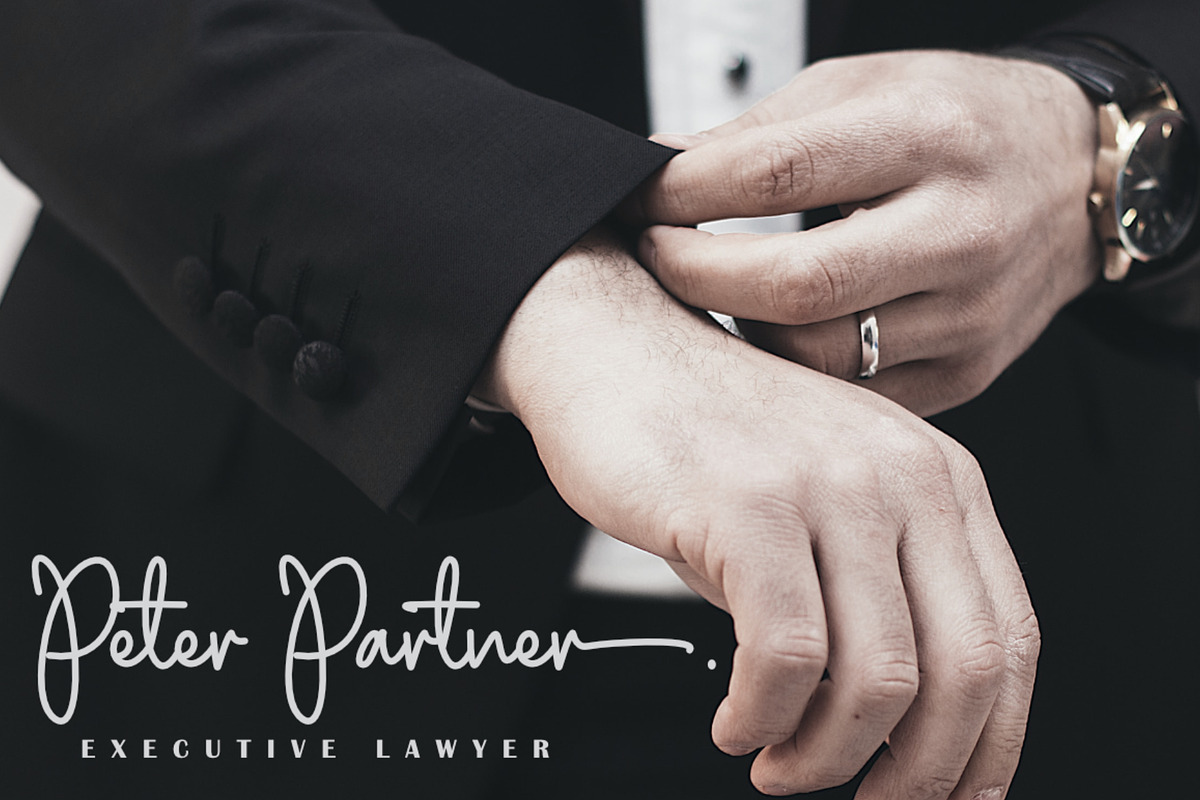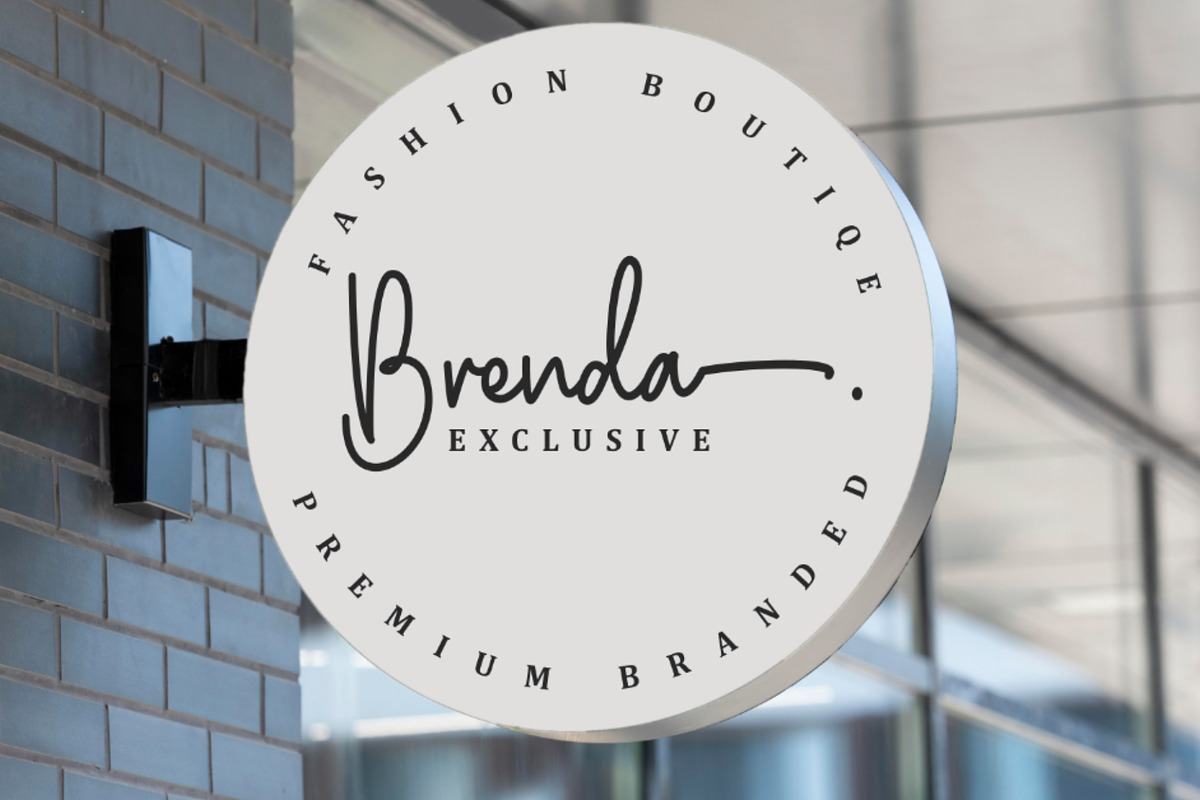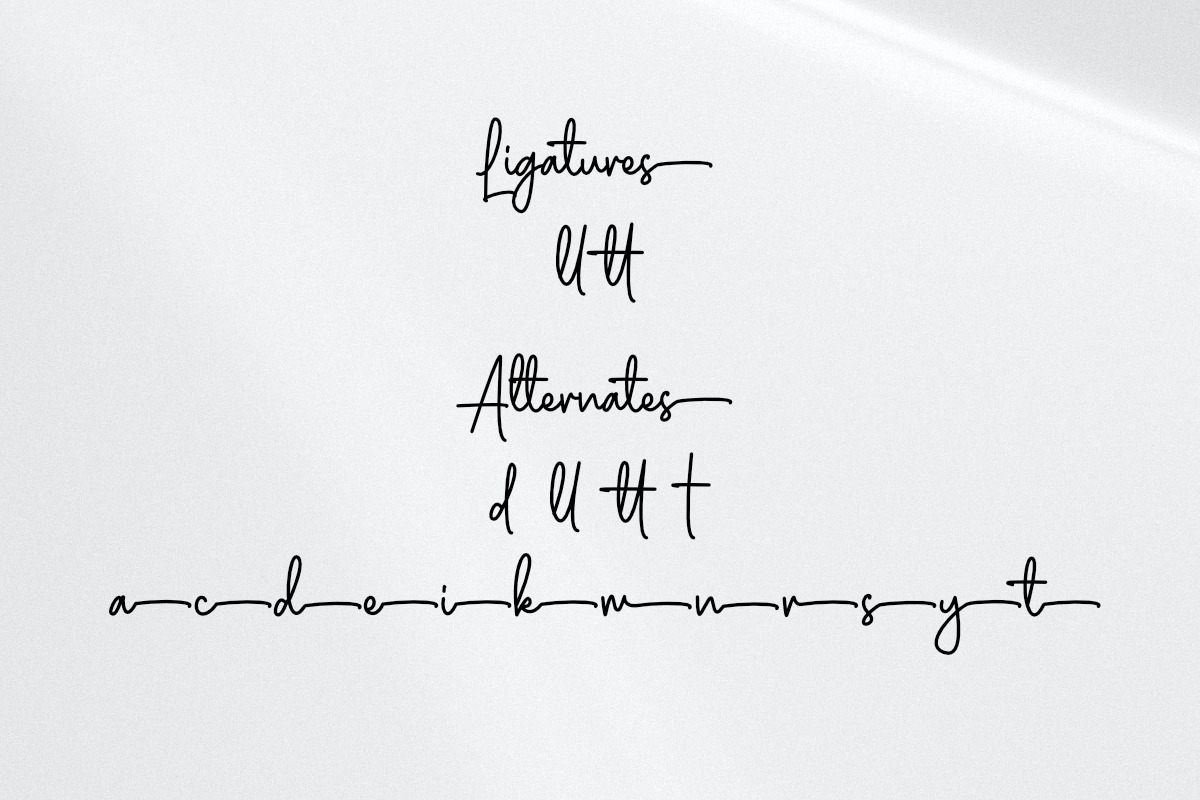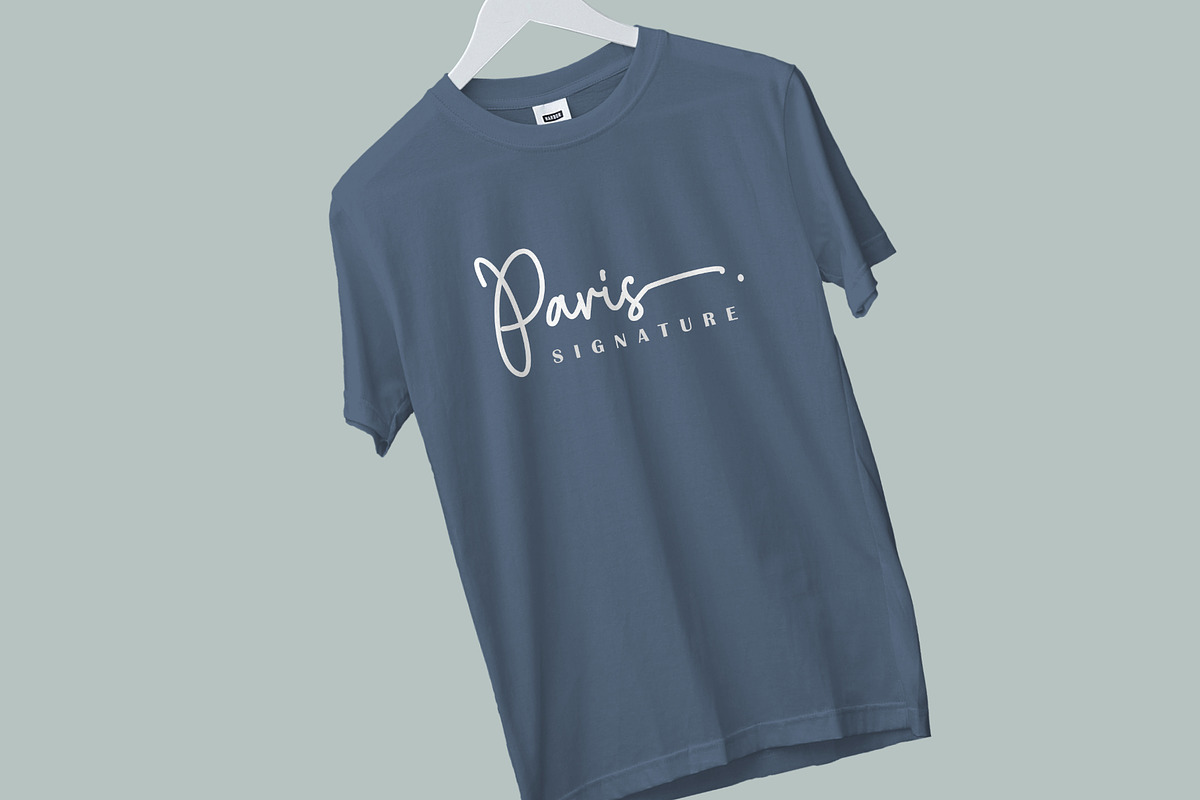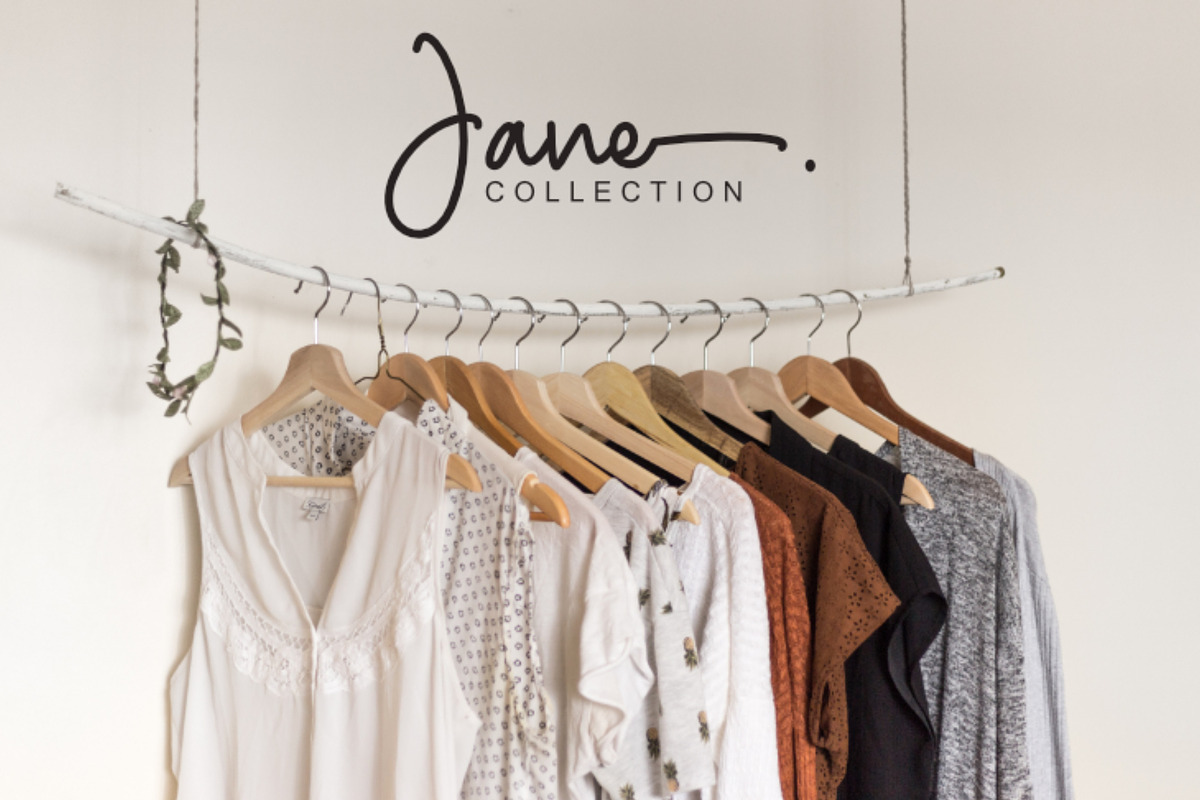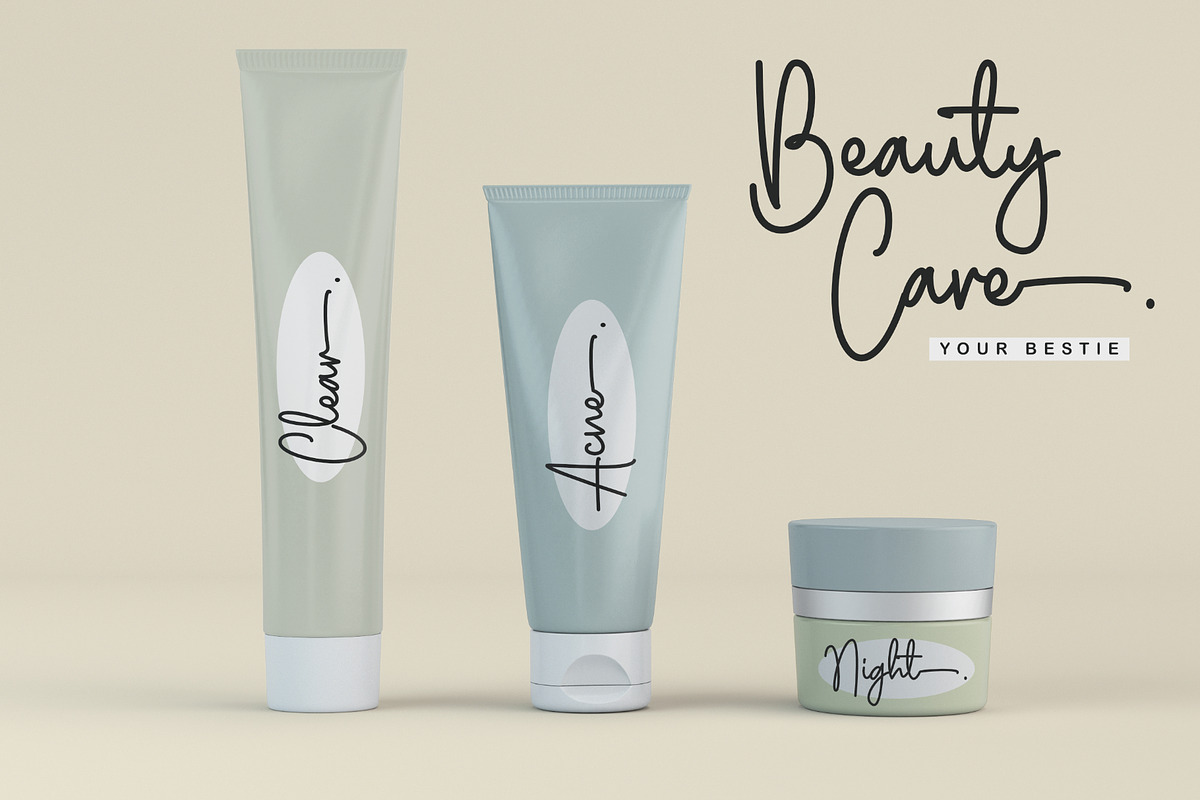
Monoline | Signature Handwriting
Hi There! Introducing Monoline, a neat, delicate, professional-looking font.
with end tails It’s a way to create a strong visual identity and leave a lasting impression on your audience. Its flow, curves, and unique design will grab the attention of your customers and make them remember you. It can create a sense of elegance, luxury, or exclusivity, depending on the design and style.
- Uppercase & Lowercase, Numeral & Punctuation, Ligature, and Alternates